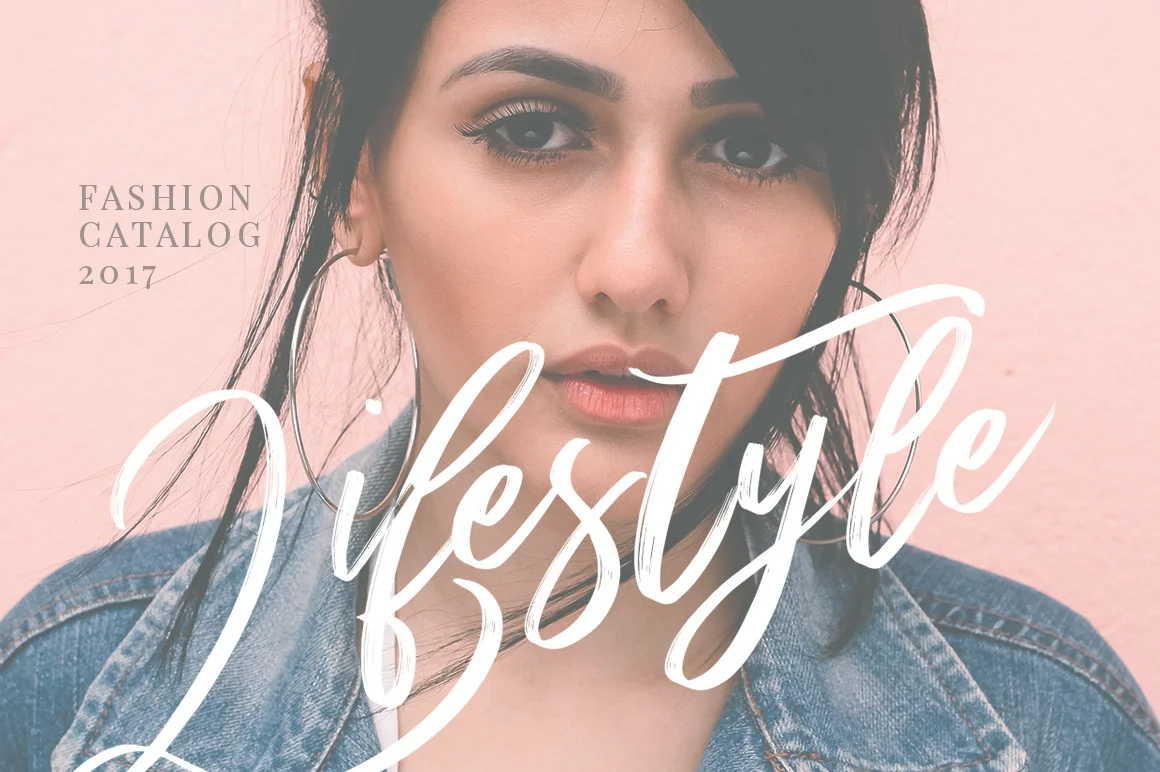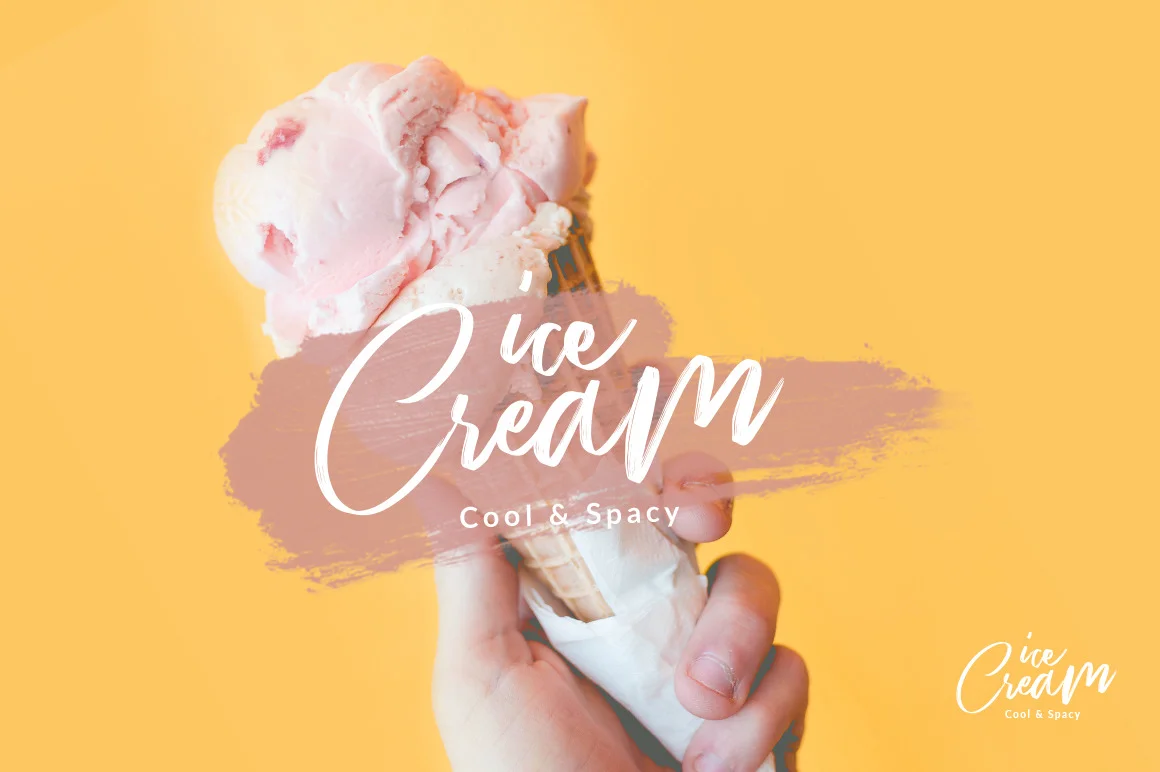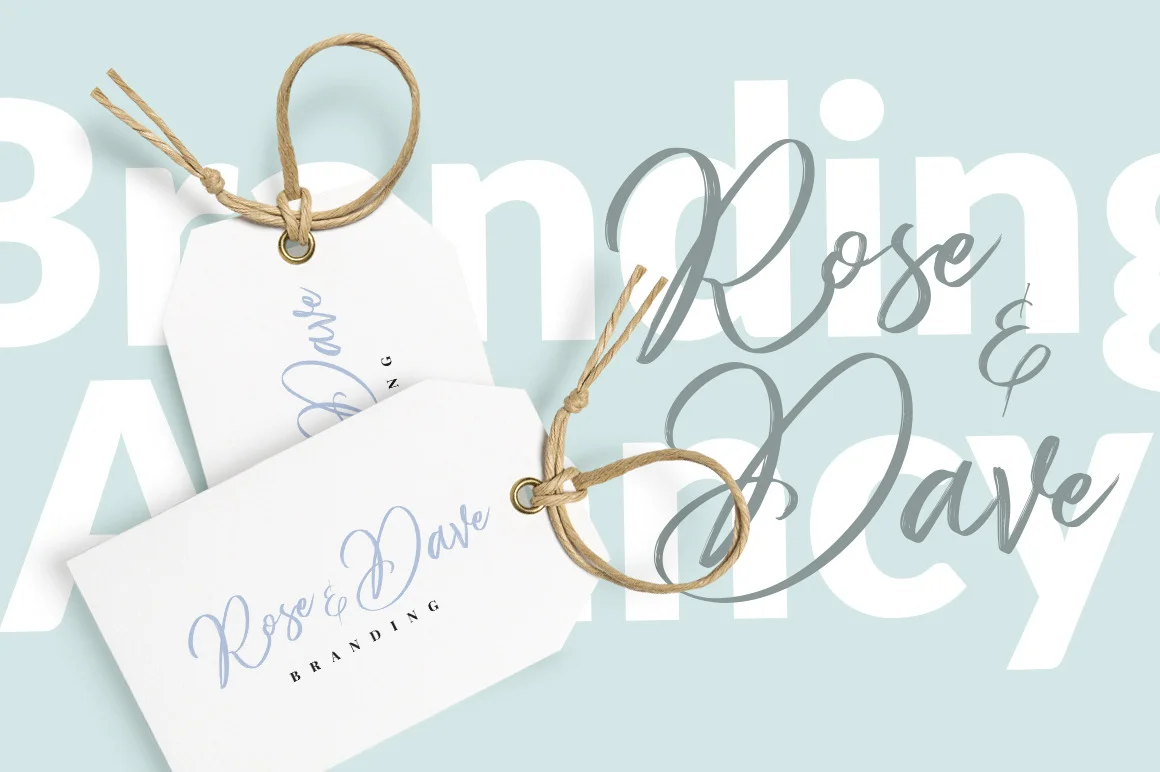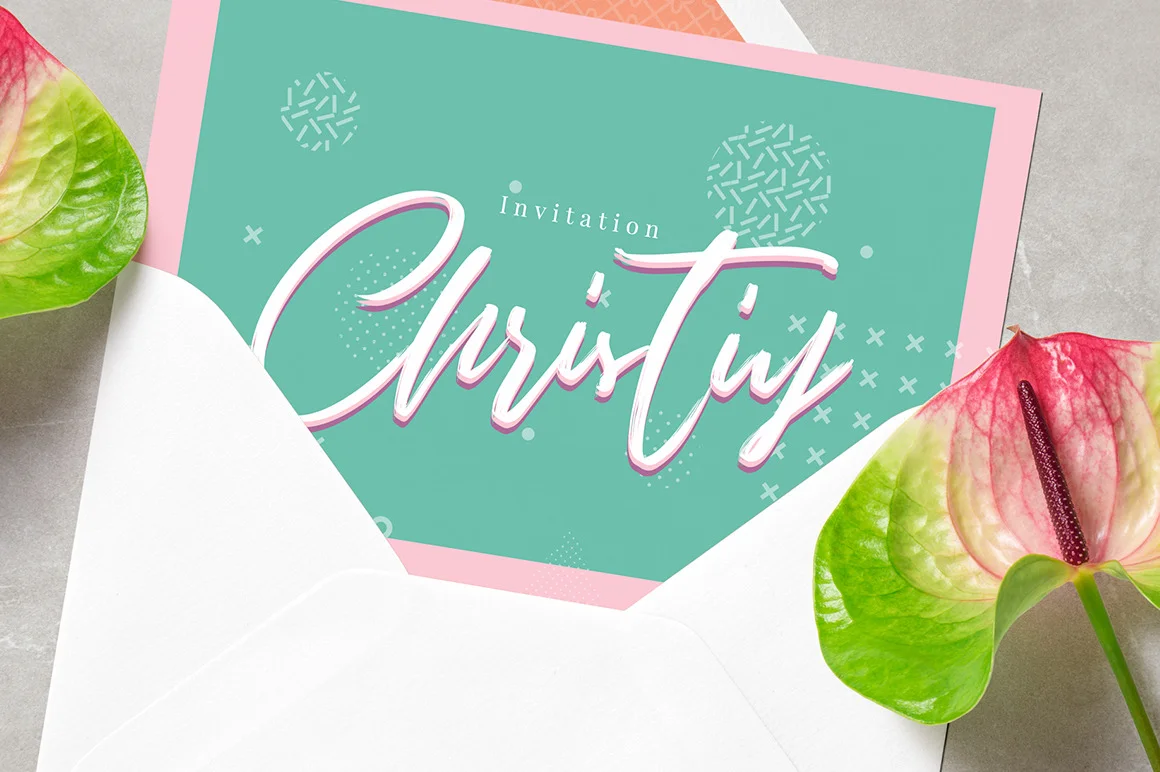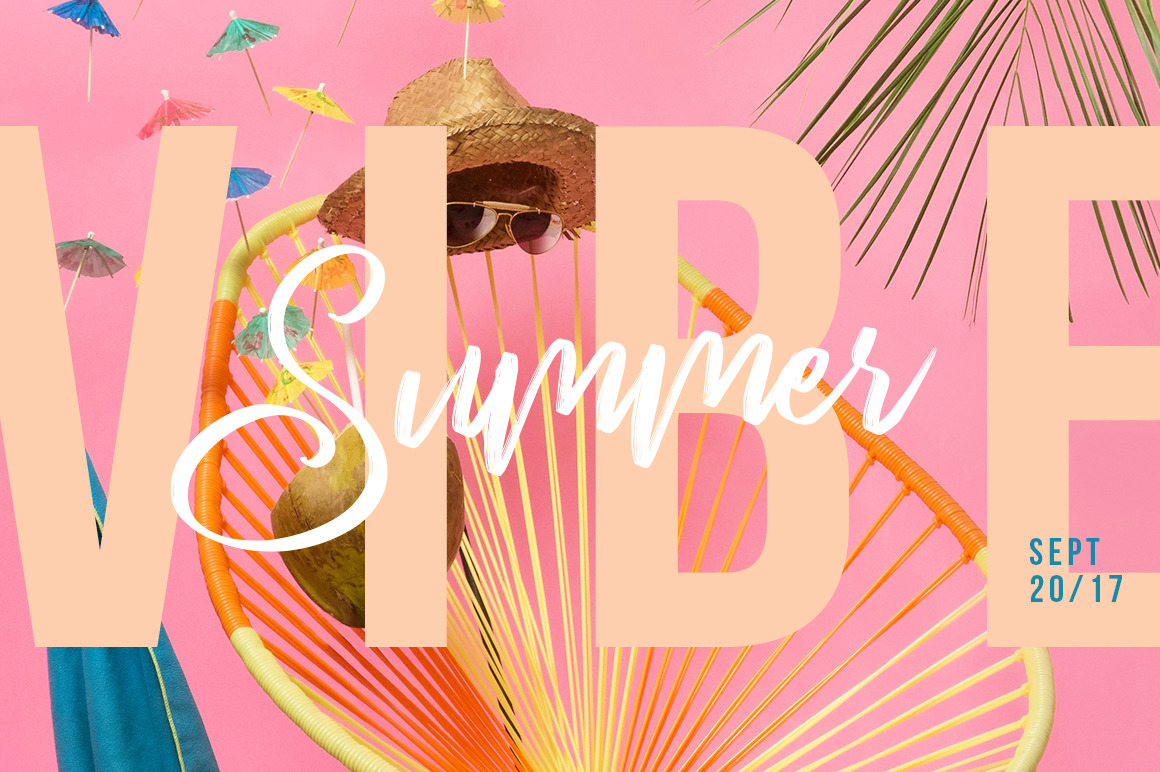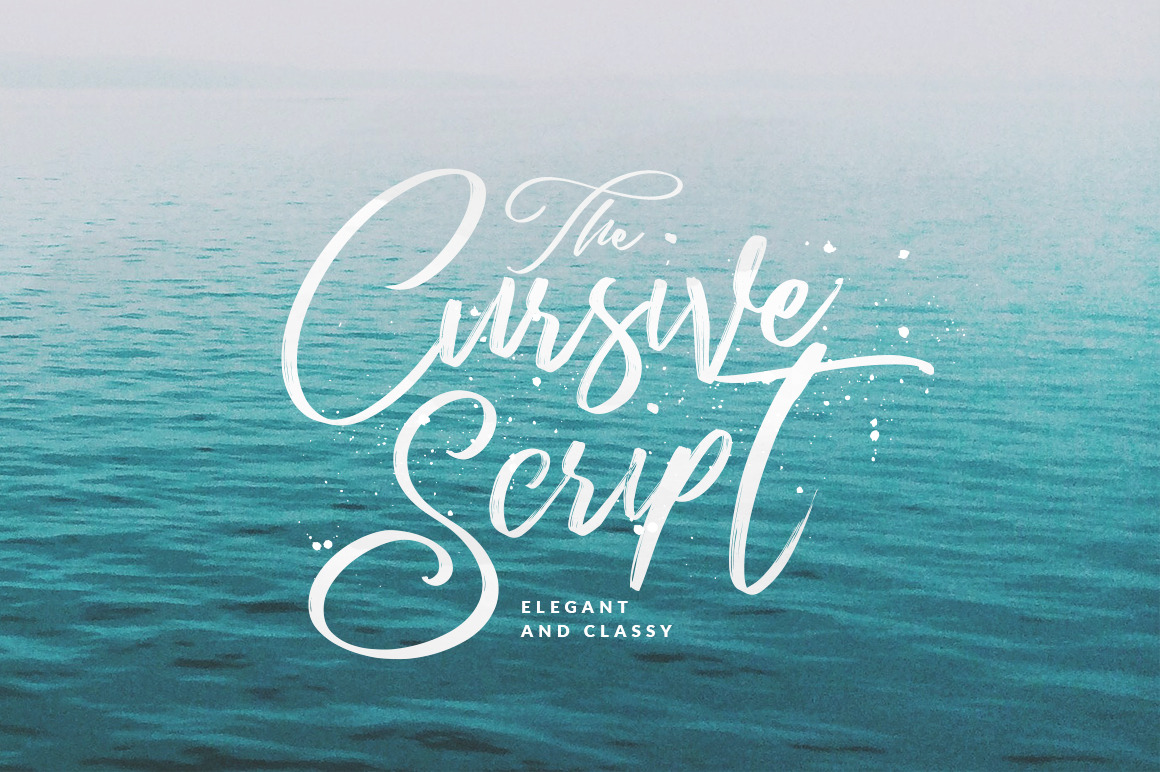
Cursive Script Handmade Brush Font
Few typefaces manage to balance strong typographic hierarchy support with genuine day-to-day practicality. Cursive Script Handmade Brush is one of them. The typeface brings an elegant, calligraphic sensibility to a broad range of creative disciplines, with visual harmony and precise spacing that holds up whether the work is print-first or screen-first.
In practice, Cursive Script Handmade Brush proves particularly effective for beauty packaging, social media graphics, bridal materials, feminine branding, advertising campaigns. Designers reaching for it find that the type decisions feel resolved rather than laboured — a useful quality when client timelines are tight.
The range of applications extends to brand identity systems, logo design, boutique logos, wedding invitations. That breadth is deliberate: the proportions and spacing were stress-tested across a wide range of mock briefs before the typeface was finalised.
At smaller sizes the design retains its character without becoming cluttered. This resilience across scales makes Cursive Script Handmade Brush equally suitable for a business card and a billboard — a useful property when assets must scale across a campaign.
UX designers establishing typographic systems for digital products find Cursive Script Handmade Brush a reliable choice for projects that demand both personality and restraint. The design avoids the self-conscious quirkiness that dates quickly, settling instead for considered distinctiveness that holds up over time.